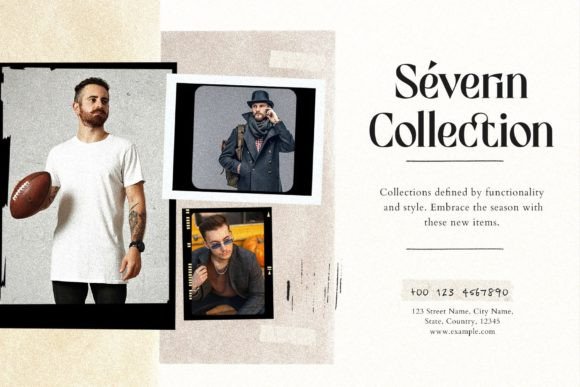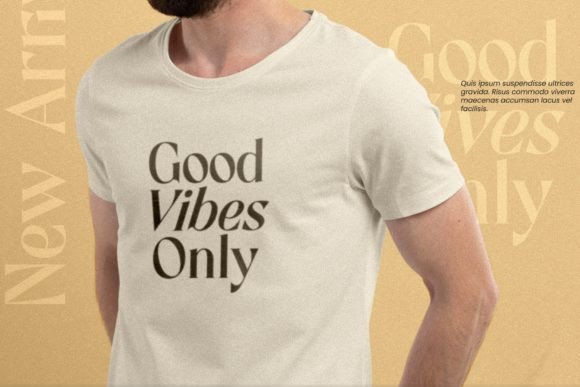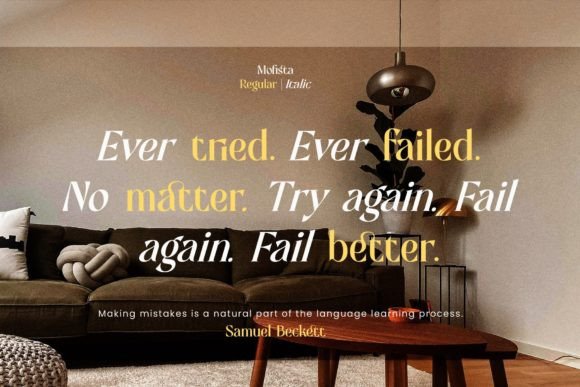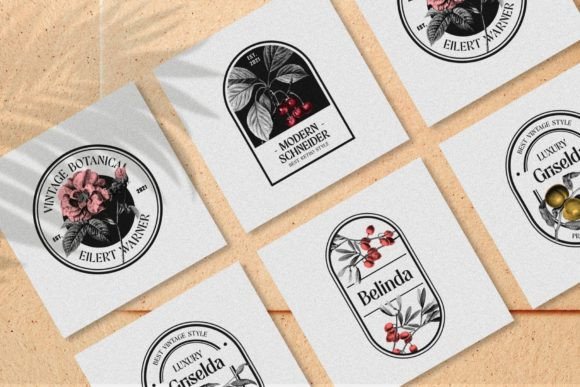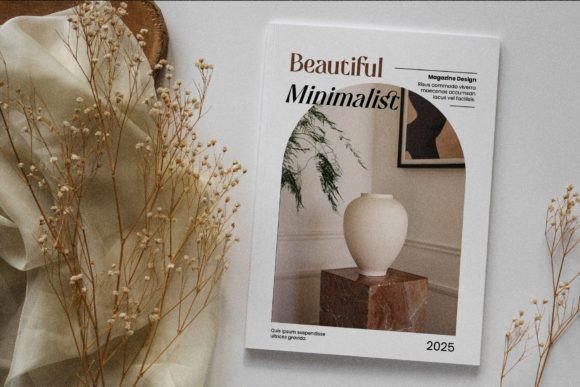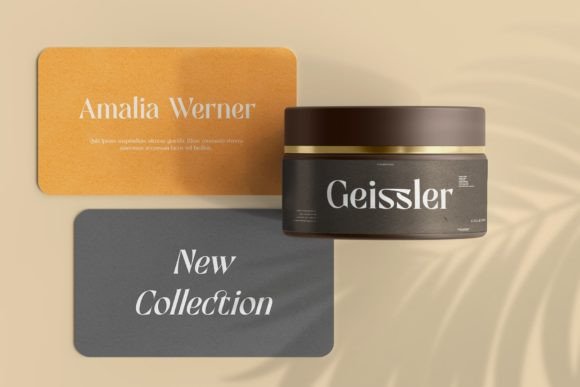
Introduction to Mofista Font
Mofista is a modern serif typeface that honors expressive old-style serif typography, the Mofista font comes with alternatives that will make your presentation or logo stand out even more.
This font will make your project look retro, chic, and neat Its soft, juicy serif gives the typeface just the right amount of warmth and nostalgia.